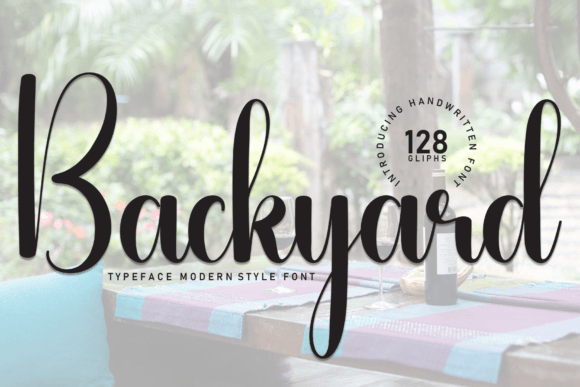
The Sweet Charm of Backyard Font: A Designer’s Delight
I’ll never forget the time I was working on a wedding invitation project, and my client asked for a font that was “fun, yet elegant.” I scoured the internet, tried countless fonts, but nothing seemed quite right. That was until I stumbled upon Backyard Font. This sweet and friendly handwritten font has been a game-changer for my designs, and I’m excited to share its charm with you! 😊
An Honest Review of Backyard Font
- ✅ Fresh and cute: Backyard Font is perfect for adding a playful touch to any design.
- ✅ Highly legible: Despite its whimsical feel, this font is surprisingly easy to read.
- ✅ Versatile: Use it for wedding invitations, cards, or any other design that needs a fun and friendly vibe.
- ✅ Handwritten charm: The imperfections and quirks of a handwritten font make it feel more personal and approachable.
While Backyard Font is an excellent choice for many designs, it’s not without its limitations. For example:
- 🤔 It may not be the best choice for very formal or corporate designs, as it can come across as too playful.
- ⚠️ Some of the characters, like the lowercase “g” and “y,” have a slightly quirky feel that might not appeal to everyone.
- Experiment with OpenType features, such as stylistic alternates, to add more personality to your text.
The Story Behind Backyard Font
Backyard Font was designed with the intention of creating a friendly and approachable handwritten font. The designer aimed to capture the feeling of a warm, sunny day spent in your backyard, surrounded by loved ones. The result is a font that’s perfect for designs that need a personal touch.
A: Absolutely! Backyard Font is versatile and can be used for branding, packaging, or any other design that needs a friendly and approachable feel.
A: Yes, Backyard Font includes OpenType features, such as stylistic alternates and glyphs, to help you customize your text.
A: Backyard Font is an excellent choice for wedding invitations, as it’s fresh, cute, and adds a playful touch to your design.